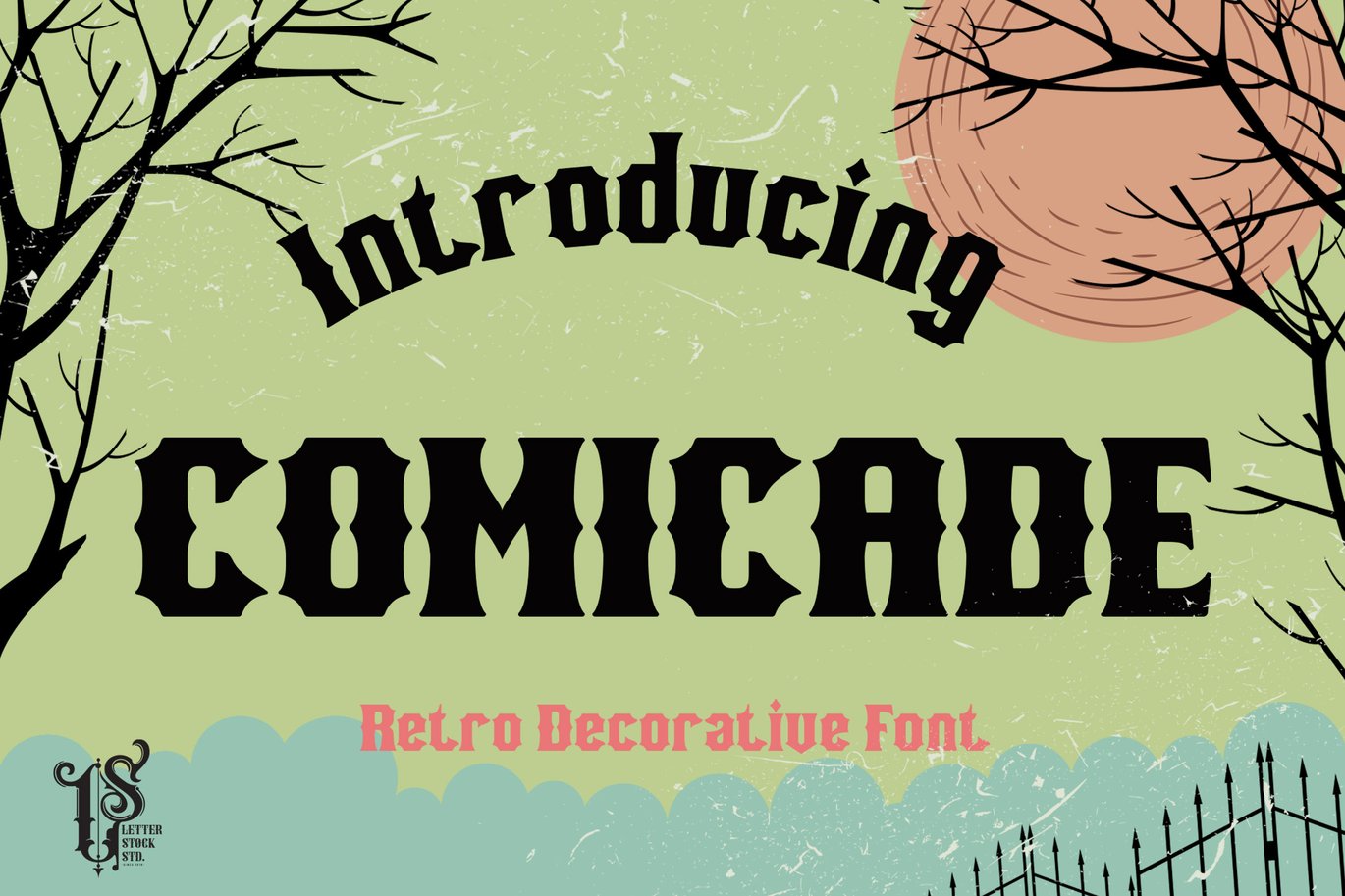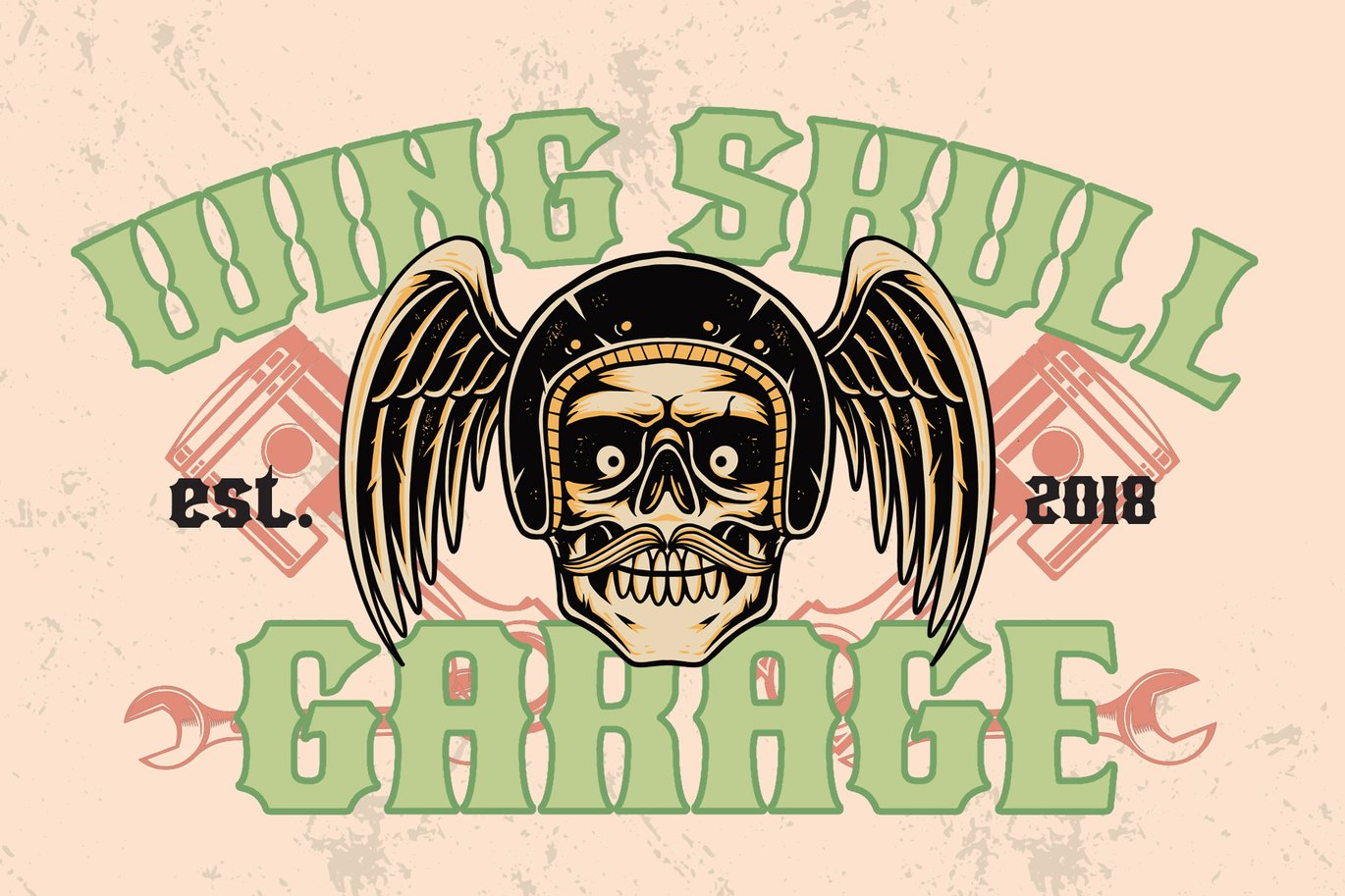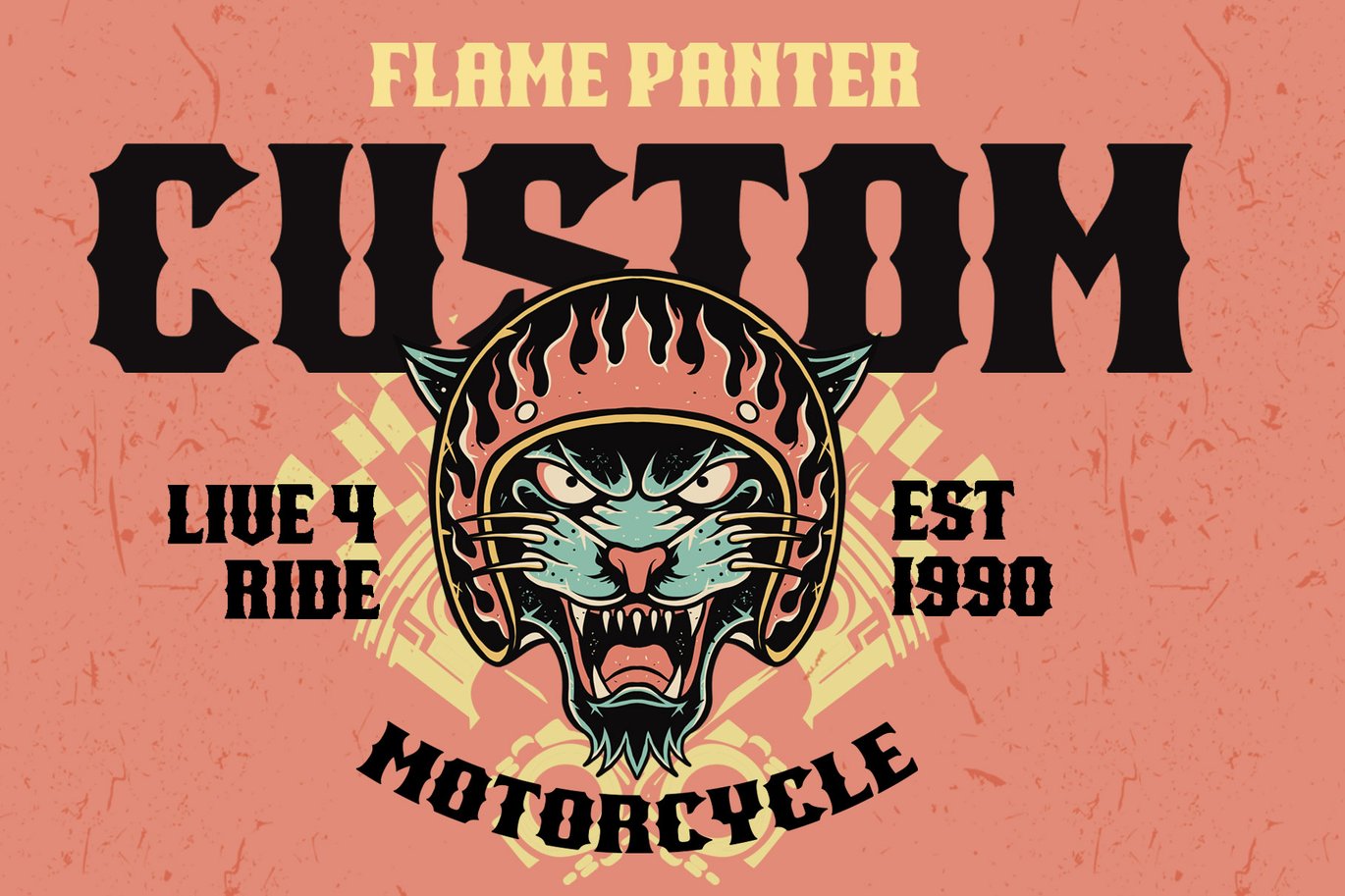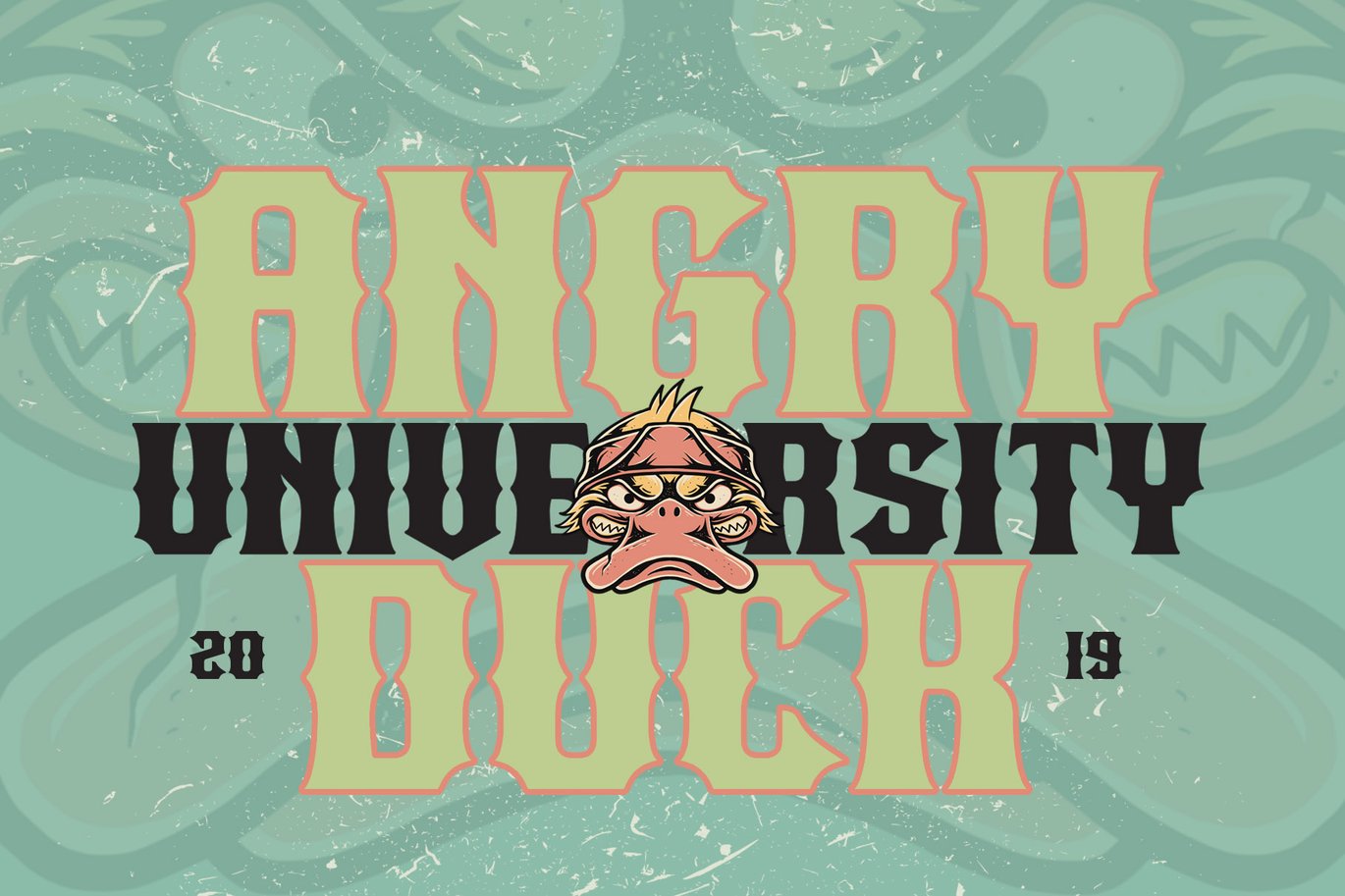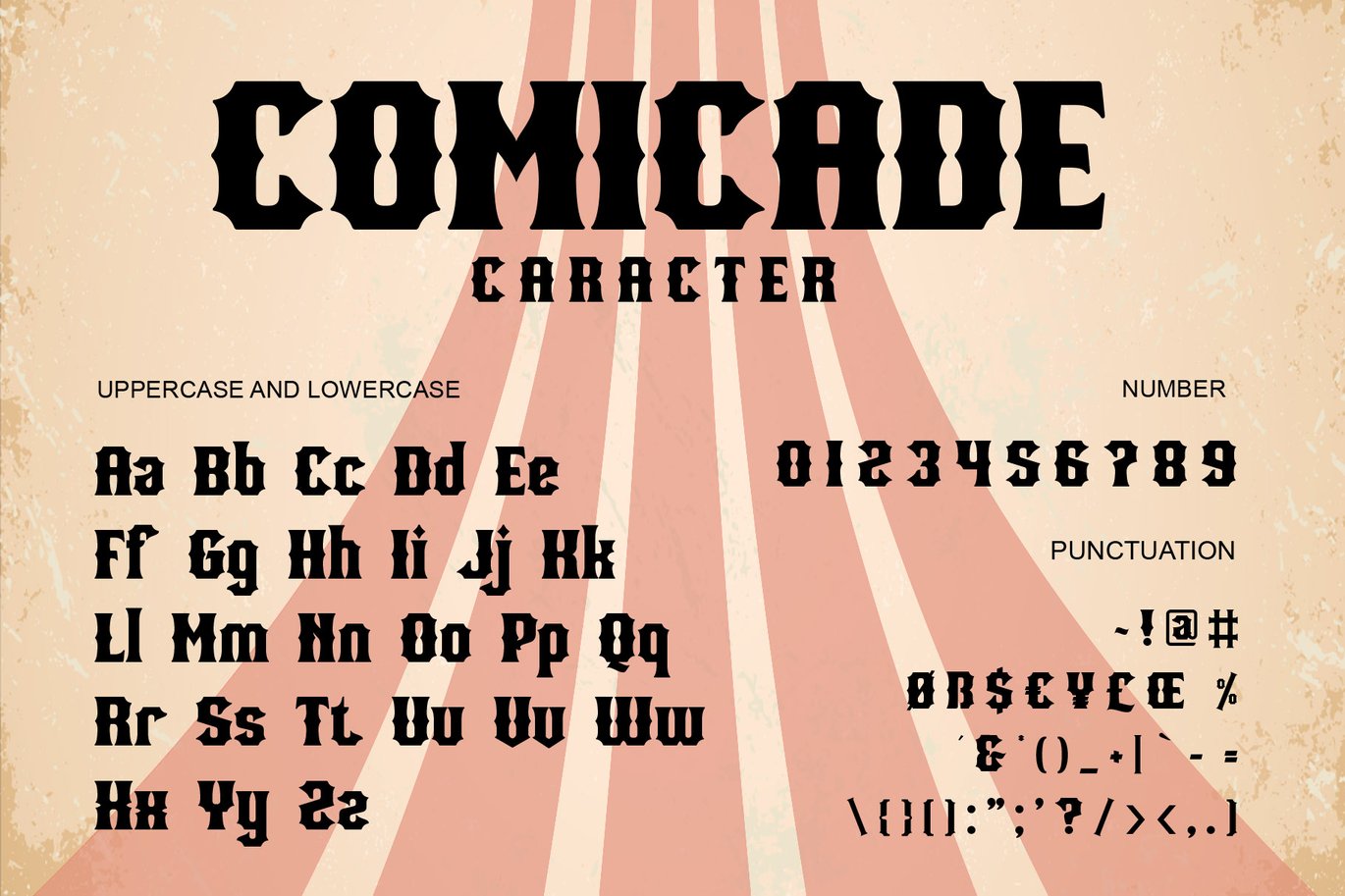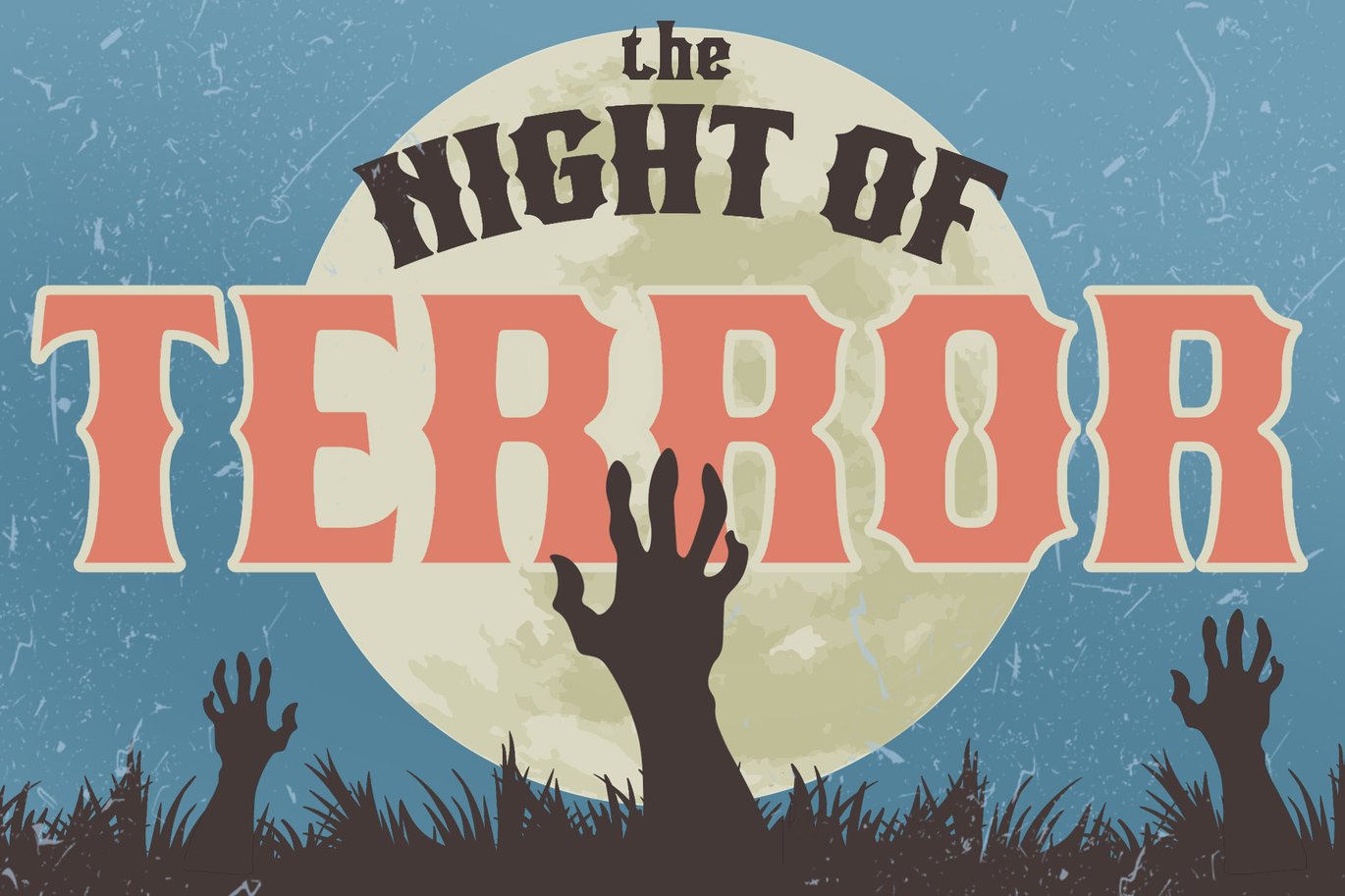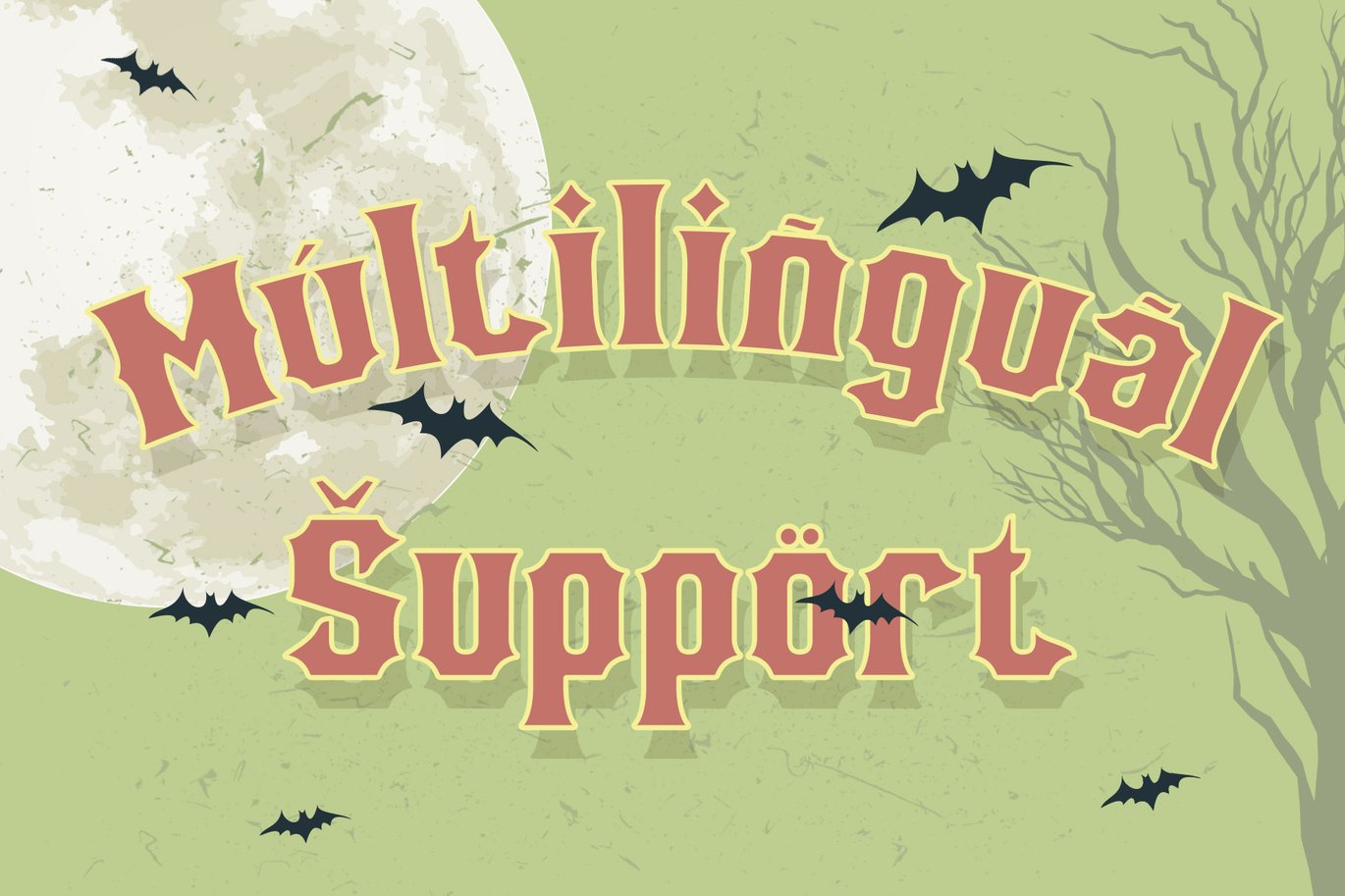
Comicade – Retro Font
Comicade Font
This pair was inspired by the retro cartoon poster design that i saw on some coffee shop, It was crafted by hand specially to add natural handmade feeling in its brand identity than i make it clean with pentool.
Comicade Font is very good looking in logo, labels, product packaging, invitations, advertising and others.